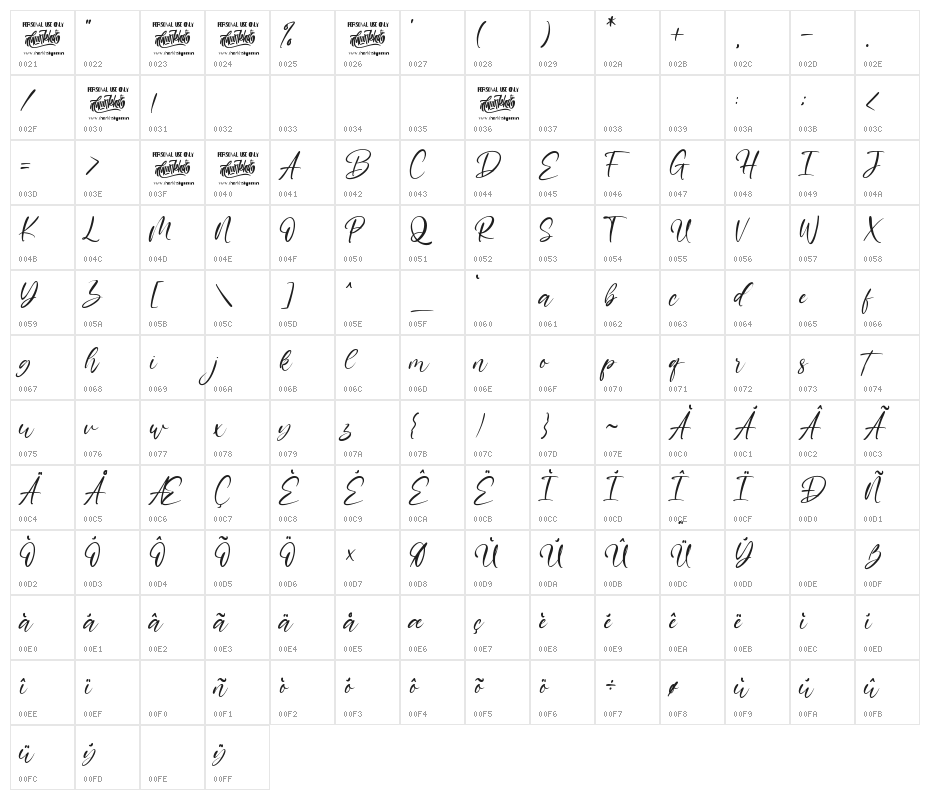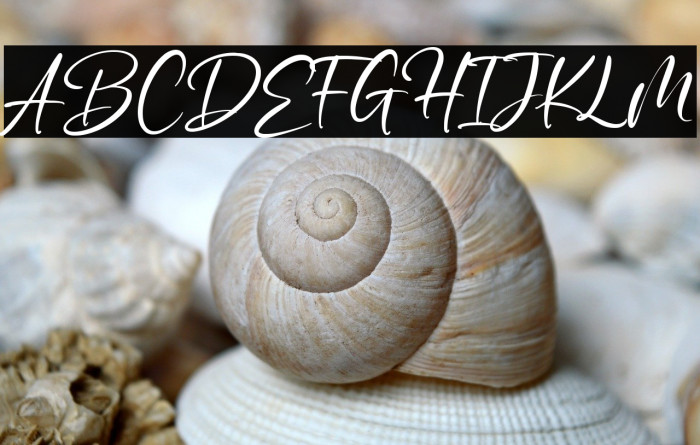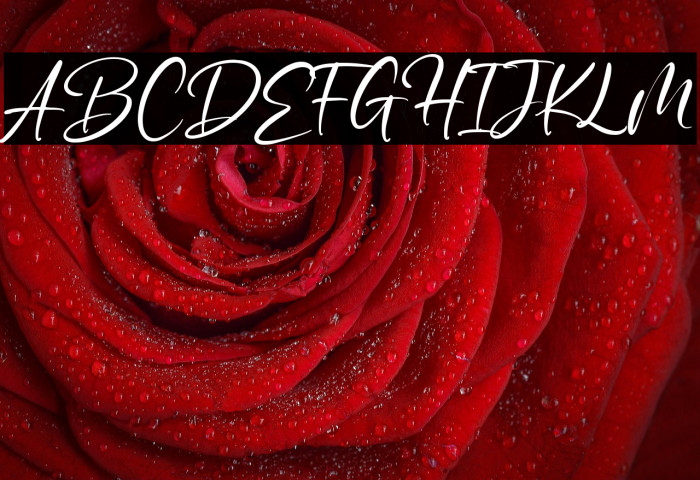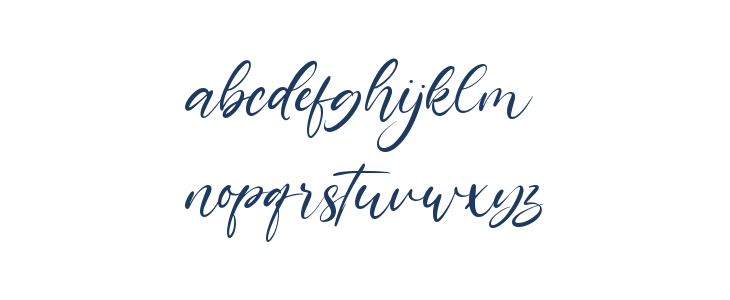
winterline Font
winterline Description
This font features an elegant and flowing script style, characterized by its smooth, cursive letterforms. The uppercase letters are tall and graceful, with sweeping curves and a sense of fluidity. The lowercase letters maintain a consistent style, with some letters featuring loops and flourishes that add to the overall decorative appearance. The font has a handwritten quality, giving it a personal and artistic touch. The characters are well-spaced, allowing for readability while maintaining an artistic flair. This font is ideal for projects that require a touch of sophistication and elegance.
| Use Case | Logos, Invitations, Decorative text |
| Proposed Projects | Ideal for wedding invitations, greeting cards, branding, and logo design. |